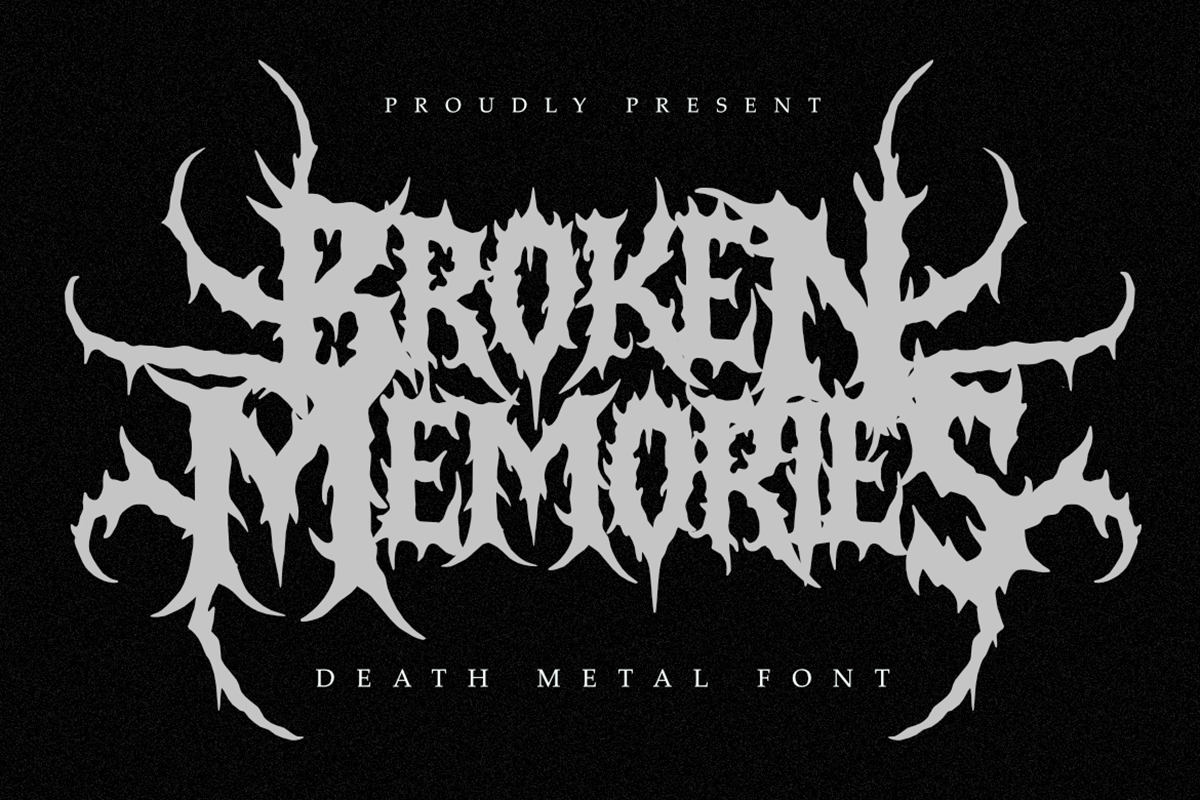
Broken Memories – Brutal Death Metal Font is a professional font for sophisticated branding and high-end extreme design projects. Its sharp and aggressive letterforms provide a contemporary yet timeless feel, striking a perfect balance between organic chaos and modern metal aesthetics. This font embodies the essence of modern minimalism while maintaining a sense of raw power and refinement, making it perfect for logos, corporate materials, and professional presentations within the music.
Inspired by the vibrant energy of the underground scene, Broken Memories offers versatility and adaptability for various design applications, helping you communicate a polished and modern aesthetic that leaves a lasting impression.